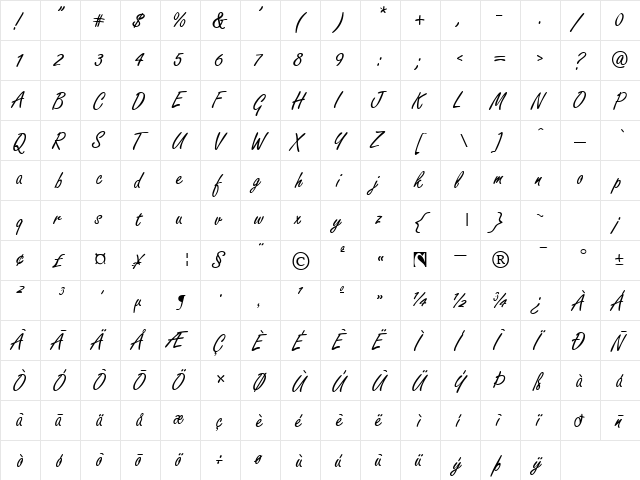
Freedom Script Regular
Design Context for Freedom Script Typeface
Freedom Script flows with the natural rhythm of handwritten lettering, making it ideal for designs that call for warmth and personal expression.
Font Pairing: Combine Freedom Script with a simple geometric sans for maximum contrast — the tension between flowing curves and clean structure is a classic typographic pairing.
Pro Tip: Use Freedom Script for short runs of text — names, titles, or taglines. Extended body copy in script faces tires the eye quickly.